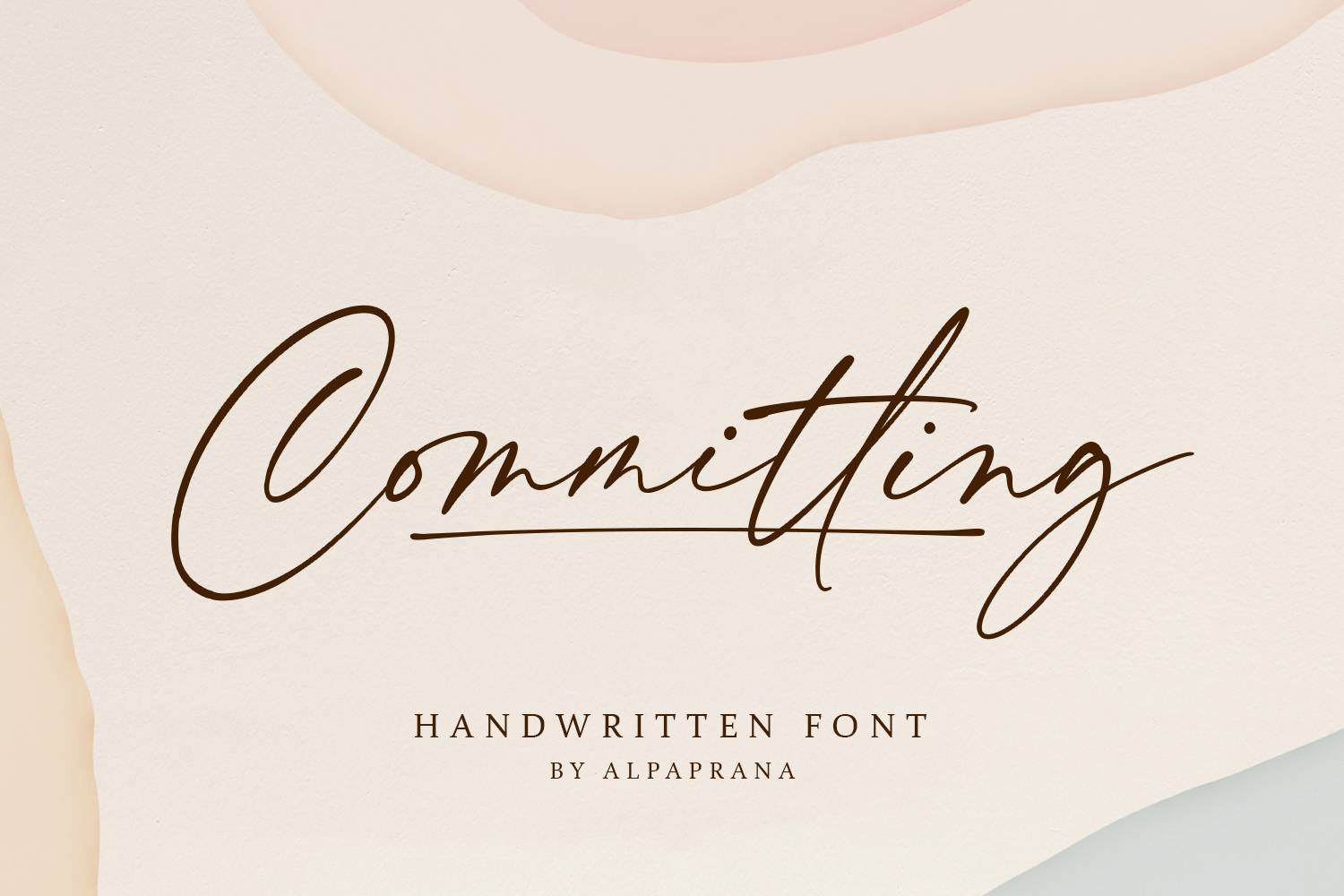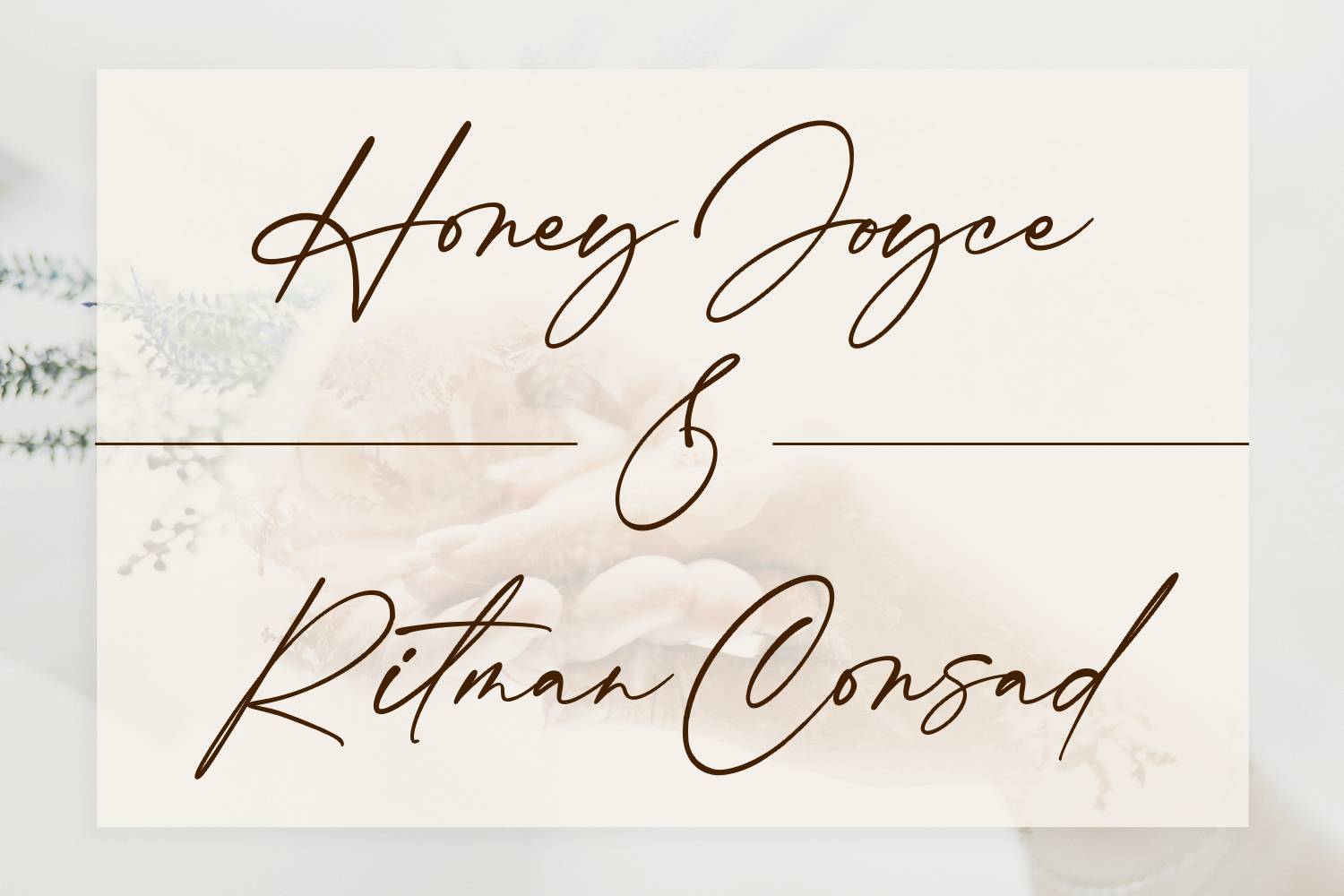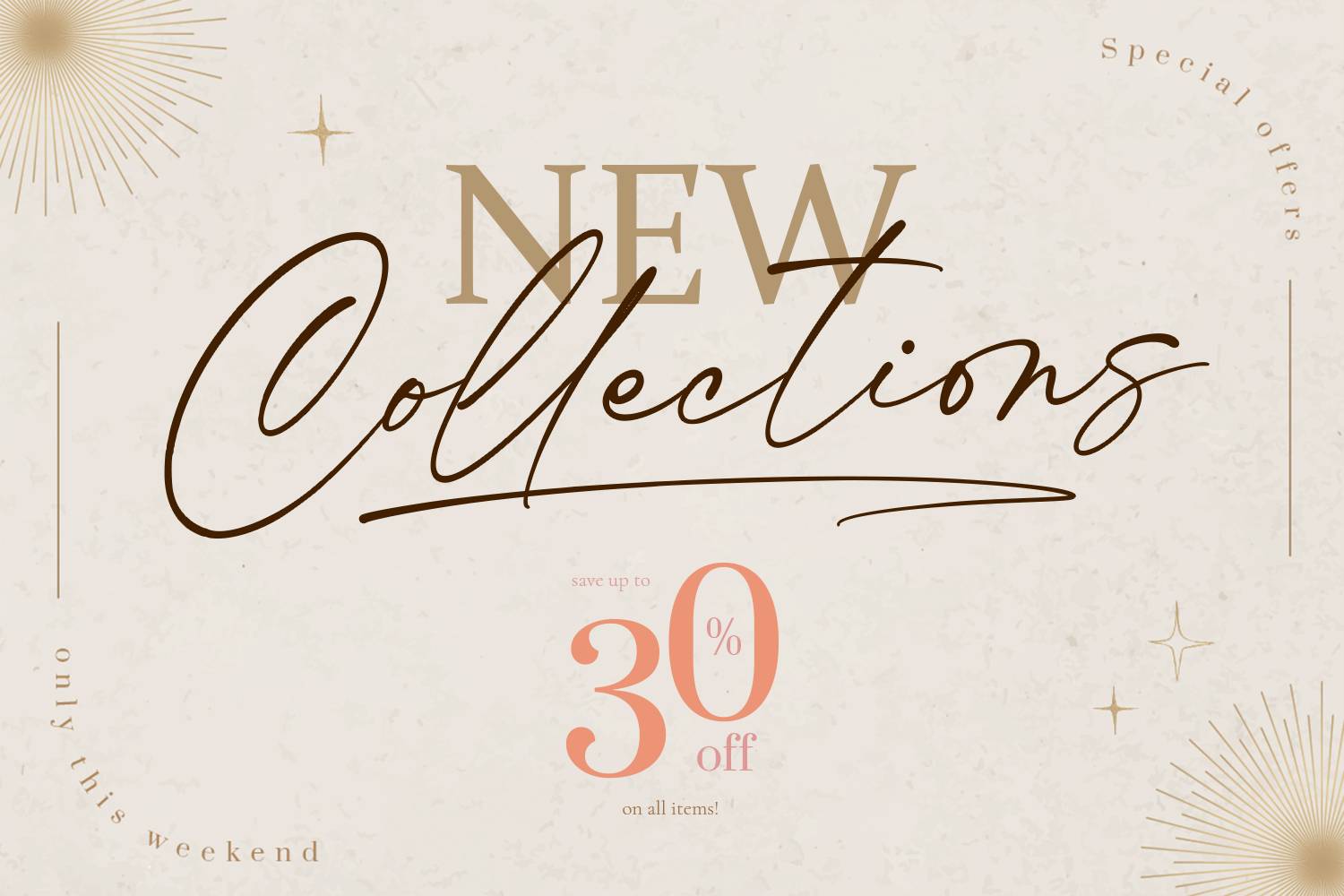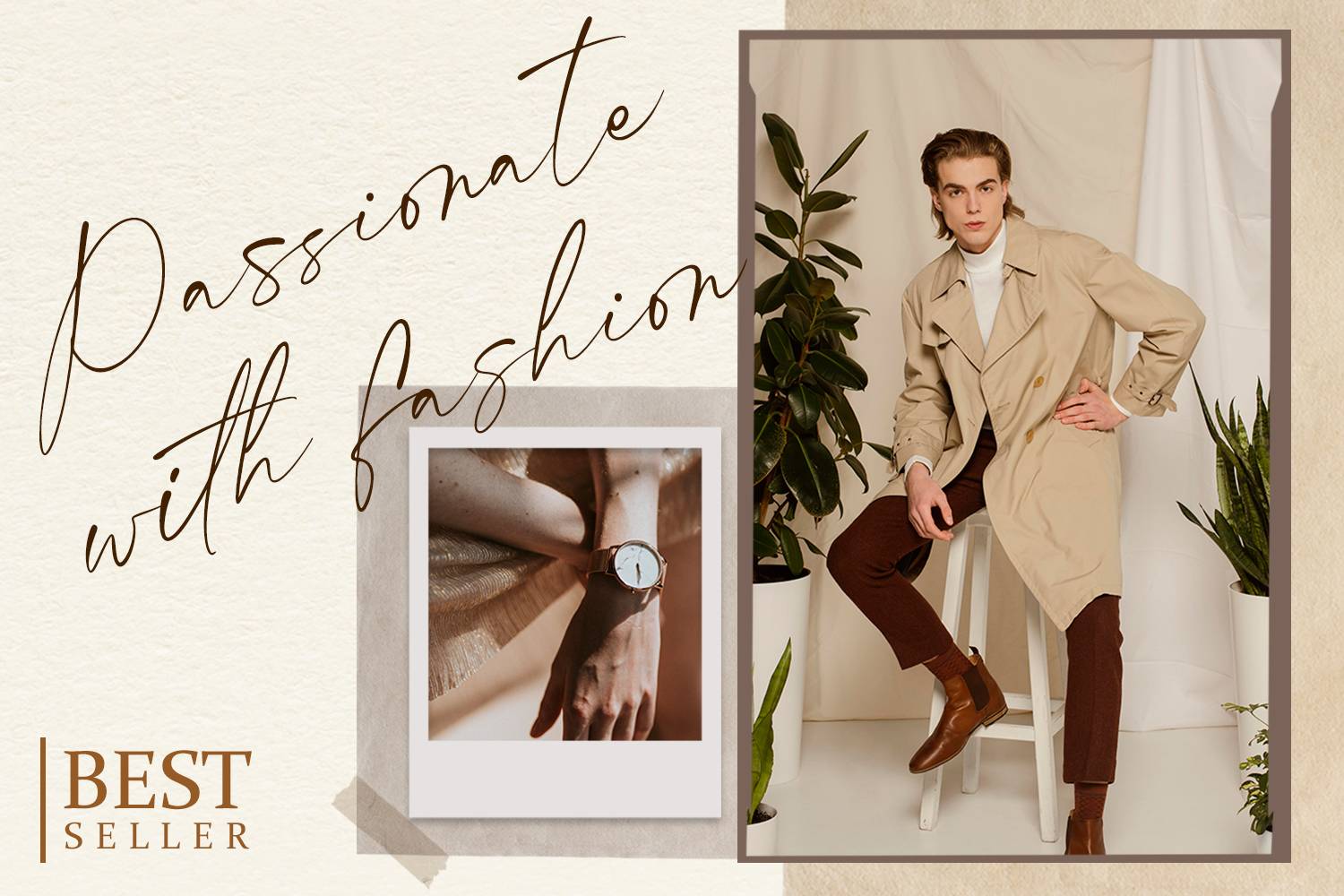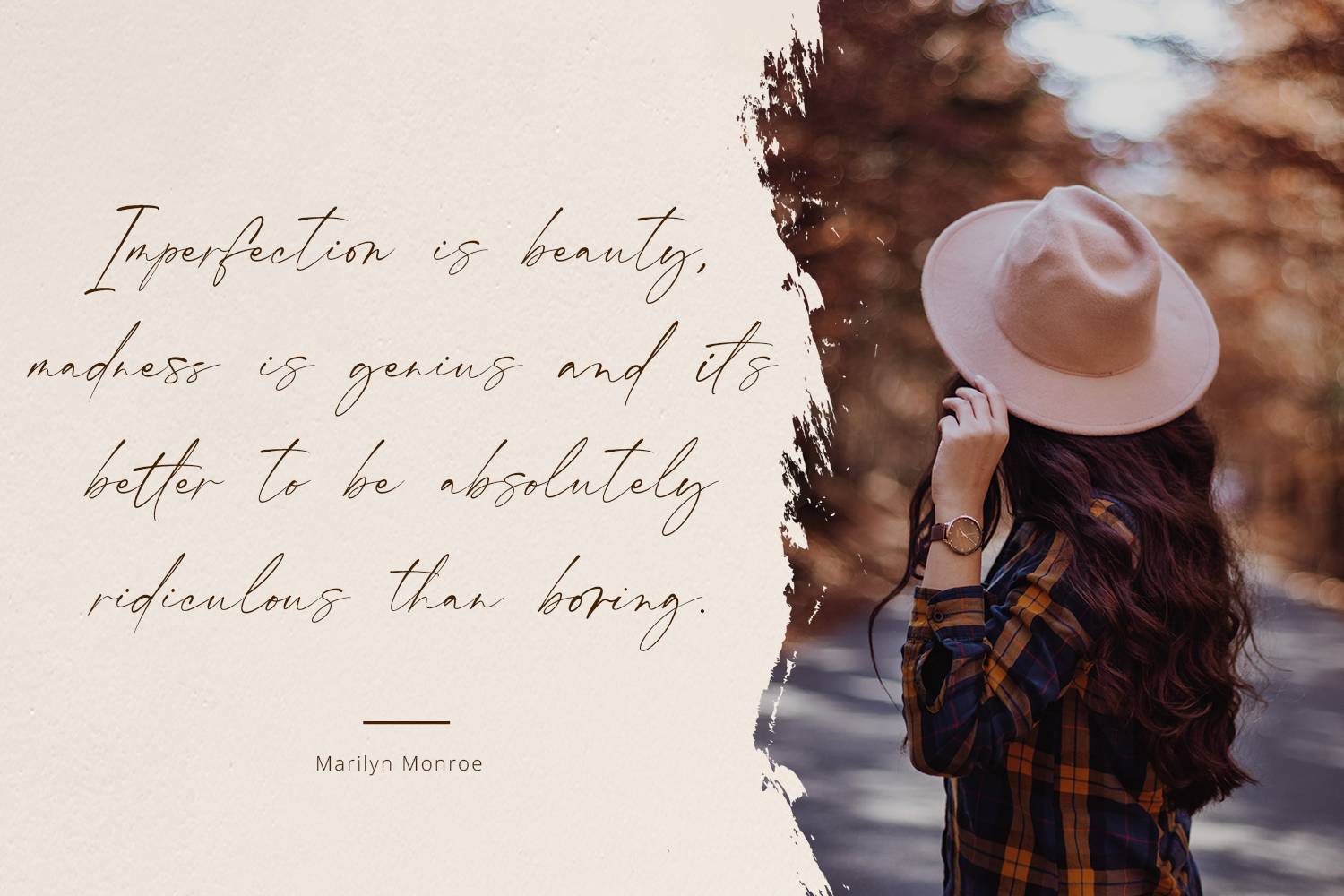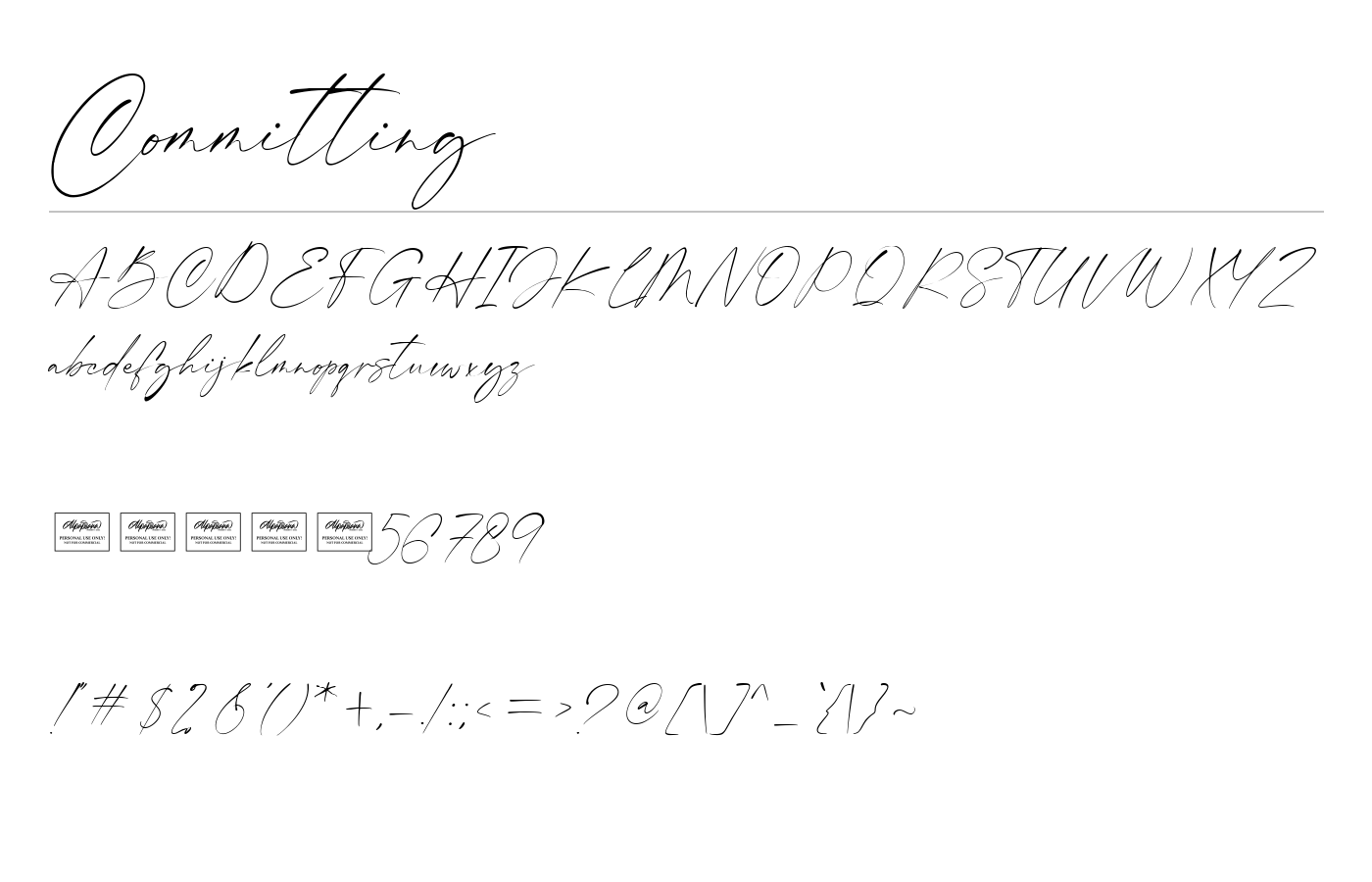
Committing Font is a delicate, elegant script typeface characterized by its thin, flowing strokes and high, slender x-height. Its handwritten style exudes a refined and personal touch, making it ideal for creative and intimate designs such as wedding invitations, branding for luxury or fashion products, and stylish editorial headlines. This font’s graceful lines and airy feel bring a sense of sophistication and modern charm to any project.